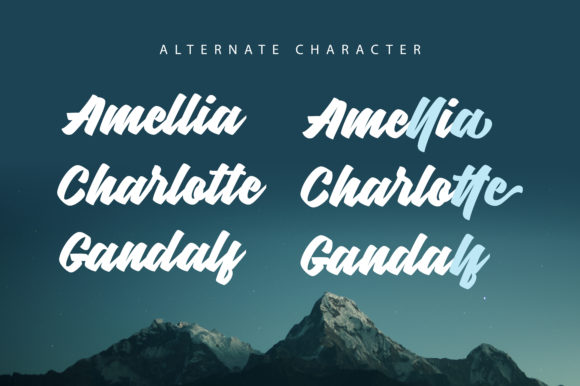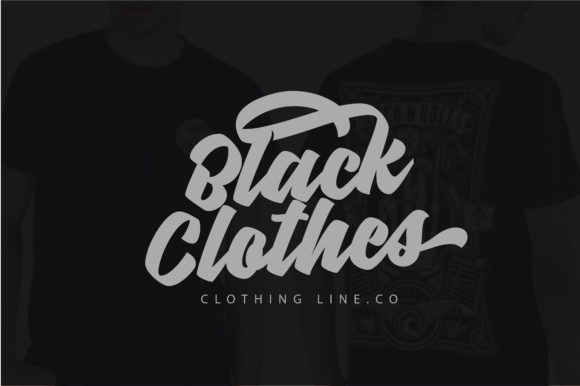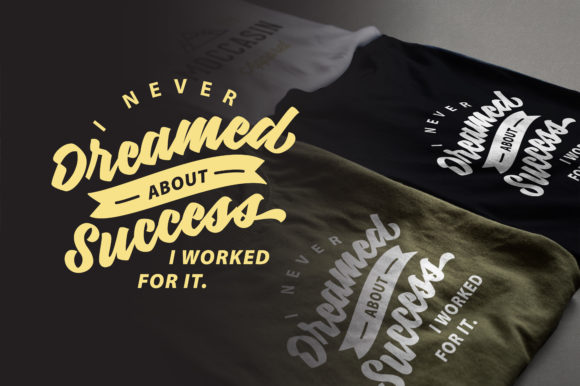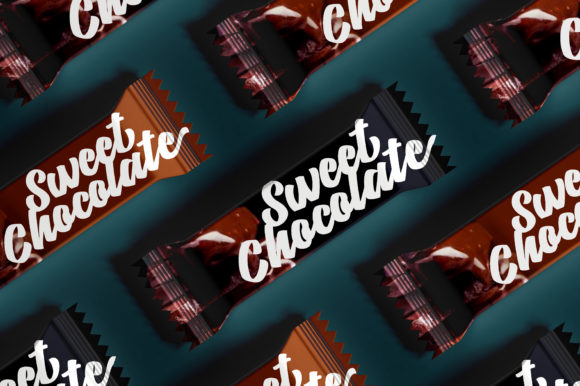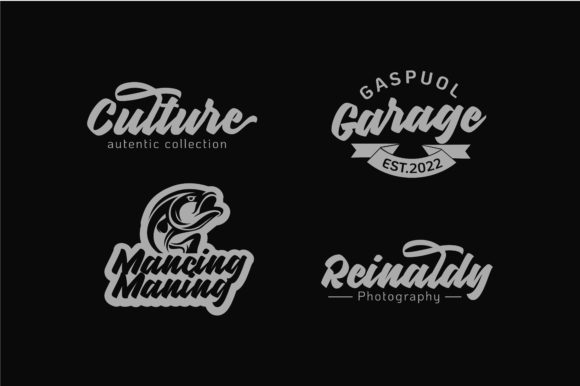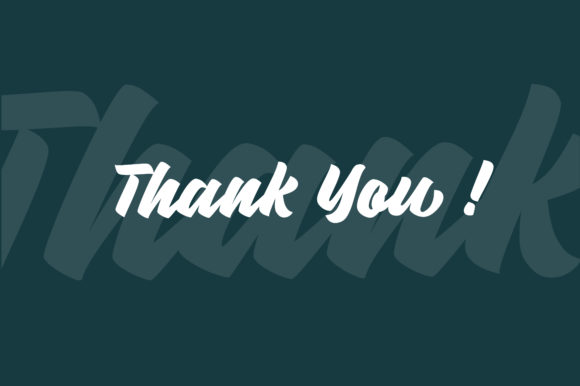
Introduction to Quick Bumper Font
Do you remember that moment when you finally find the perfect font for your creative project, and everything just clicks into place? That’s what happened when we discovered the Quick Bumper Font. Its bold, handwritten style is like a breath of fresh air, adding a touch of nostalgia and personality to any design.
As a designer, you know how valuable a high-quality font can be. It’s the difference between a good design and a great one. And with Quick Bumper Font, you get more than just a pretty face – you get a design resource that’s PUA encoded, making it easy to access all the glyphs and swashes you need to create stunning headlines and logotypes.
Key Features of Quick Bumper Font
- High-quality design resource ideal for various creative projects, such as digital marketing, social media, and advertising.
- Unique, modern design style that stands out from traditional fonts, perfect for designers looking for a creative twist.
Honest Review: Quick Bumper Font
I recently had the opportunity to test out the Quick Bumper Font, and I have to say, it’s been a great addition to my design resource library. ✨ The font is modern, sleek, and perfect for any creative project that requires a bold and eye-catching look.
- High-quality design: The Quick Bumper Font is well-designed, with crisp lines and a clean aesthetic.
However, I do have a few minor complaints ⚠️. The font can be a bit too bold for some designs, and it might be overwhelming if used in large quantities.
Overall, I’m really impressed with the Quick Bumper Font. It’s a great addition to any designer’s library, and I’d definitely recommend it to anyone looking for a high-quality, free design resource.
Common Use Cases for Quick Bumper Font
The Quick Bumper Font is suitable for a variety of creative projects, including:
- Marketing materials, such as flyers and brochures.
- Social media graphics and posts.
- Presentations and reports.
- Web design and development projects.